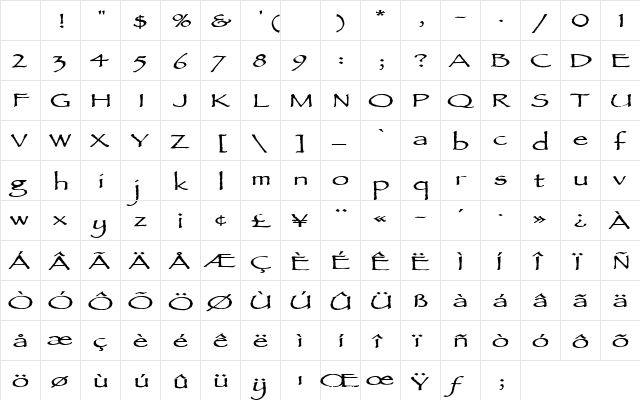
Complete AncientScriptExtended Regular glyph index. Displaying only characters natively supported by AncientScriptExtended Regular font.
AncientScriptExtended flows with the natural rhythm of handwritten lettering, making it ideal for designs that call for warmth and personal expression.
Font Pairing: Combine AncientScriptExtended with a simple geometric sans for maximum contrast - the tension between flowing curves and clean structure is a classic typographic pairing.
Pro Tip: Use AncientScriptExtended for short runs of text - names, titles, or taglines. Extended body copy in script faces tires the eye quickly.